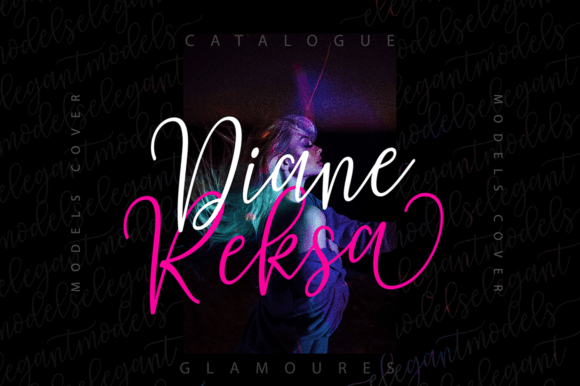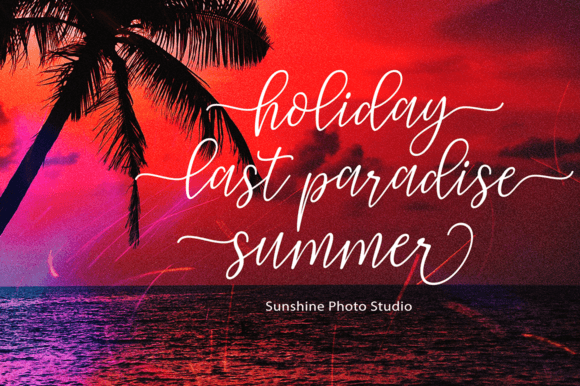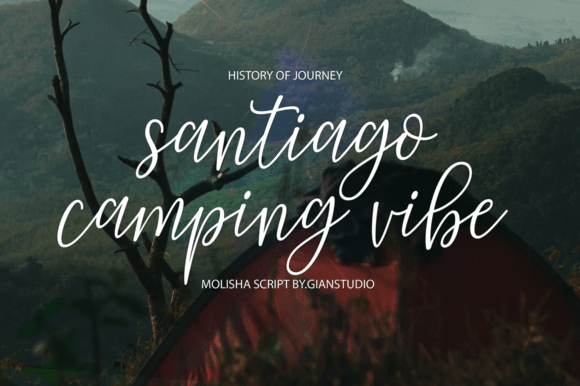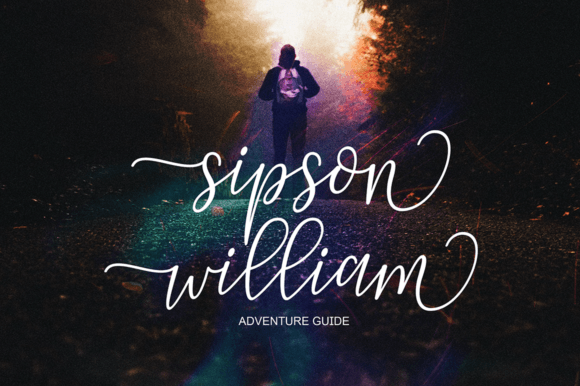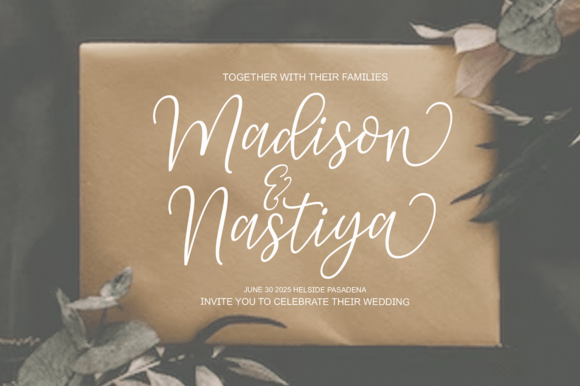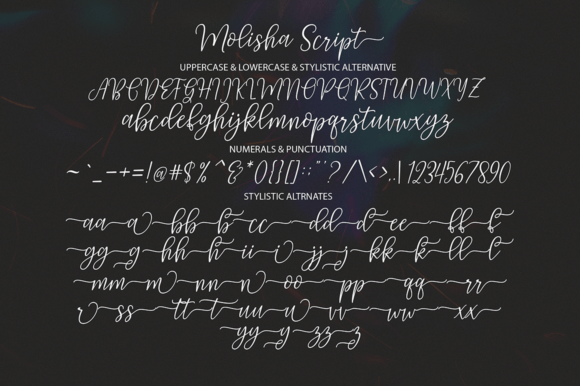
Introduction to Molisha Script Font
Do you remember that moment when you finally found the perfect font to elevate your design project? For designers, discovering a high-quality font can be a game-changer, and today we’re excited to introduce you to the stunning Molisha Script Font.
With its intricate details and elegant feel, this font is a valuable addition to any designer’s library. Whether you’re working on a creative project that requires a touch of sophistication or a free download that will give your design a personal touch, Molisha Script Font is sure to impress. Its transparent background and PUA encoding make it easy to access all glyphs and swashes, allowing you to customize your design to perfection.
Key Features of Molisha Script Font
- High-quality, elegant script font suitable for various creative projects, including invitations, logos, and branding materials.
- Comes with a transparent background, allowing for seamless integration with any design or image.
- Designed with a unique, handwritten feel, adding a touch of personality to any creative project.
Honest Review: Molisha Script Font
As a designer, I’m always on the lookout for high-quality design resources to elevate my creative projects. Recently, I had the chance to work with the Molisha Script Font, and I must say, it’s been a game-changer for my designs.
- ✨ Beautifully crafted script font with a personal touch
- ✨ Suitable for a wide range of creative projects, from wedding invitations to branding materials
- ✨ Transparent background option, allowing for seamless integration with other design elements
- ⚠️ Limited font styles and variations available
- ⚠️ May not be suitable for projects requiring a more formal or traditional font
Overall, I’m thoroughly impressed with the Molisha Script Font. Its unique design and versatility make it an excellent addition to any designer’s toolkit. If you’re looking for a high-quality script font to elevate your creative project, I highly recommend giving the Molisha Script Font a try.
Molisha Script Font is a high-quality design resource that can elevate any creative project. With its elegant and sophisticated look, it’s perfect for adding a touch of sophistication to your designs.
Tips for Getting the Most Out of Molisha Script Font
Some tips to get the most out of Molisha Script Font include using it sparingly to add emphasis, combining it with other fonts for a unique look, and experimenting with different font sizes and colors to create a visually appealing design.
The Molisha Script Font is perfect for use in wedding invitations, branding materials, and other creative projects that require a touch of elegance and sophistication.